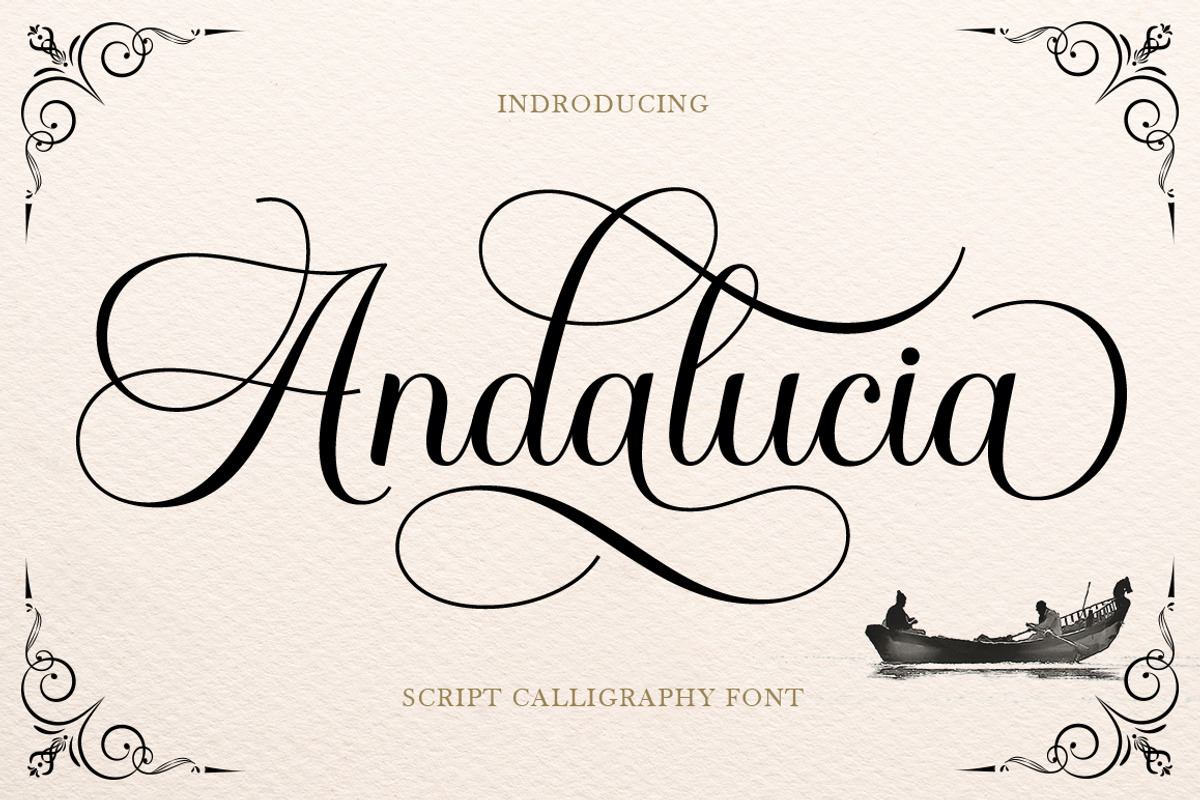
Andalucia Font Free Download is a graceful and romantic script typeface inspired by classic calligraphy. Perfect for wedding invitations, personal branding, product packaging, and social media graphics, it adds a luxurious, handwritten feel to any project. Please note that you must purchase this font for commercial use, but it is available as a free download for testing purposes. Whether you're designing with elegance or emotion in mind, Andalucia Font Free Download delivers charm and sophistication that elevate your typography to a higher standard.